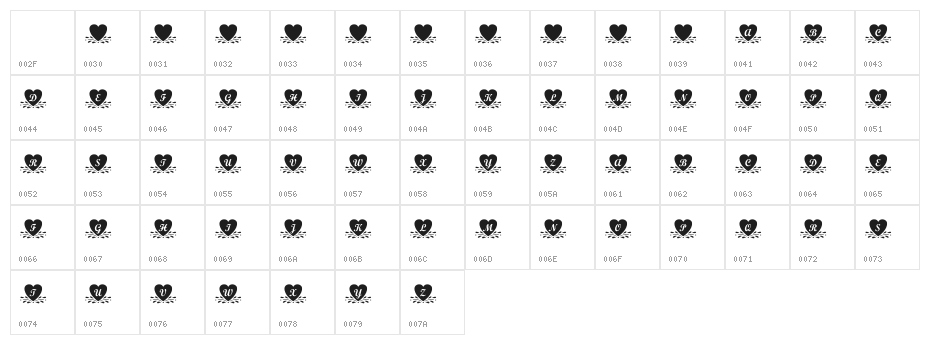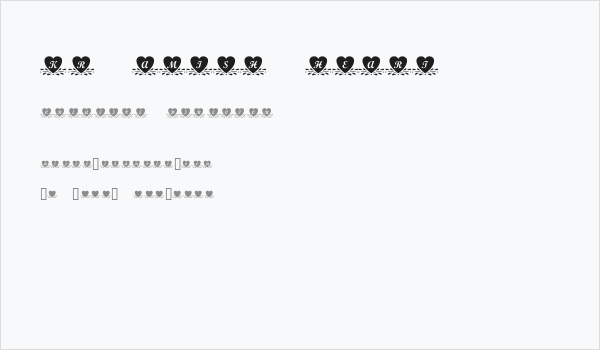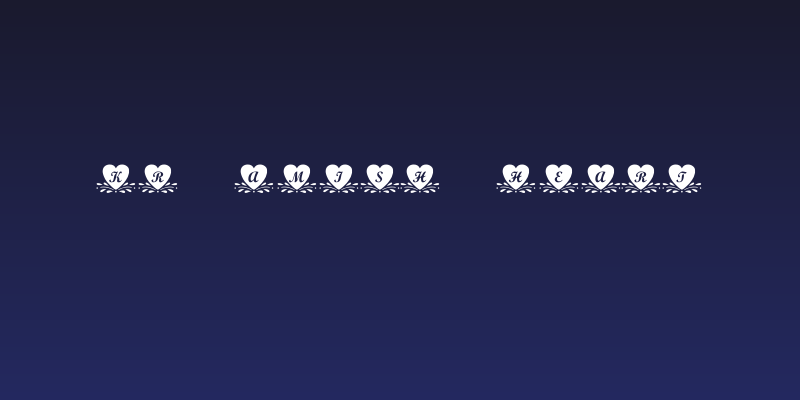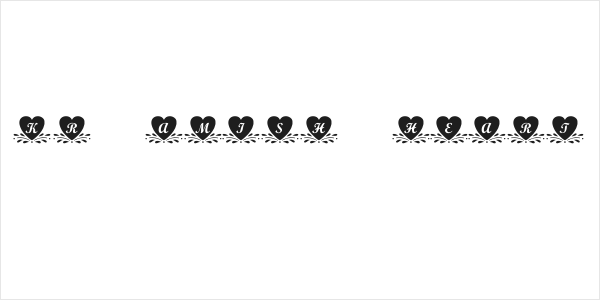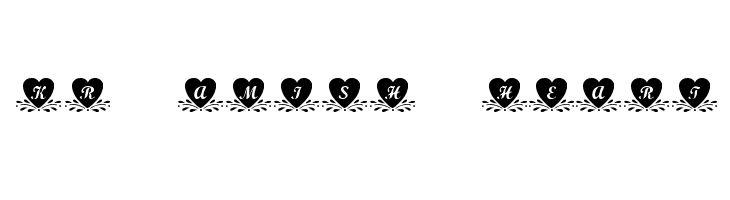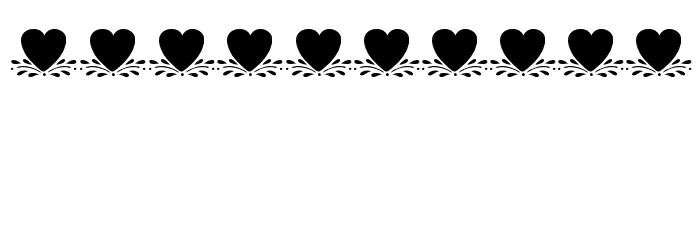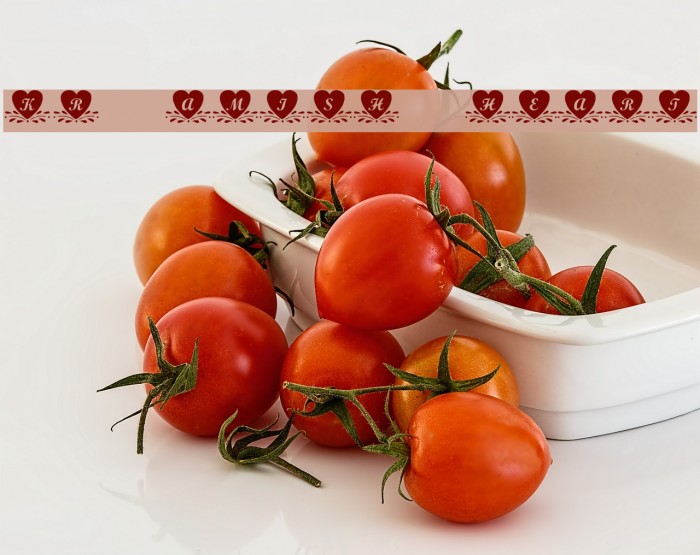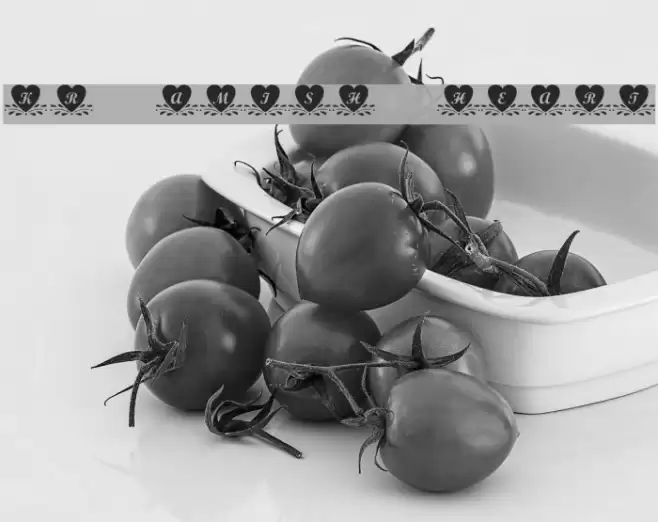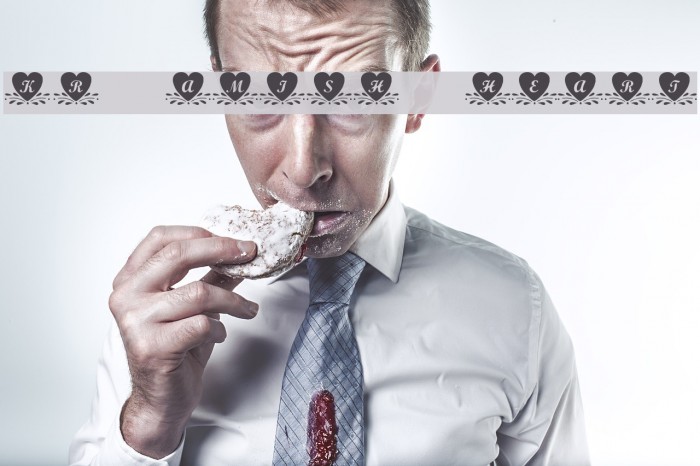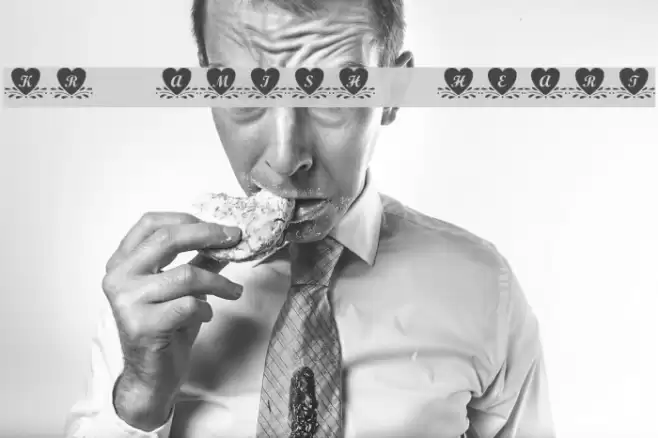
KR Amish Heart Font
KR Amish Heart Description
This decorative font features each character enclosed within a heart shape, creating a whimsical and romantic aesthetic. The letters are elegantly styled with a script-like quality, adding a touch of sophistication. The hearts are adorned with a subtle pattern at the base, enhancing the overall design. This font is perfect for projects that require a playful yet elegant touch, such as wedding invitations, Valentine's Day cards, or any design that aims to convey love and affection. Its unique presentation makes it stand out, capturing attention with its charming and artistic flair.
| Overall Style | Romantic, Whimsical, Elegant |
| Use Case | Headlines, Logos, Invitations |
| Proposed Projects | Wedding invitations, Valentine's Day cards, love-themed posters, greeting cards, and romantic event branding. |